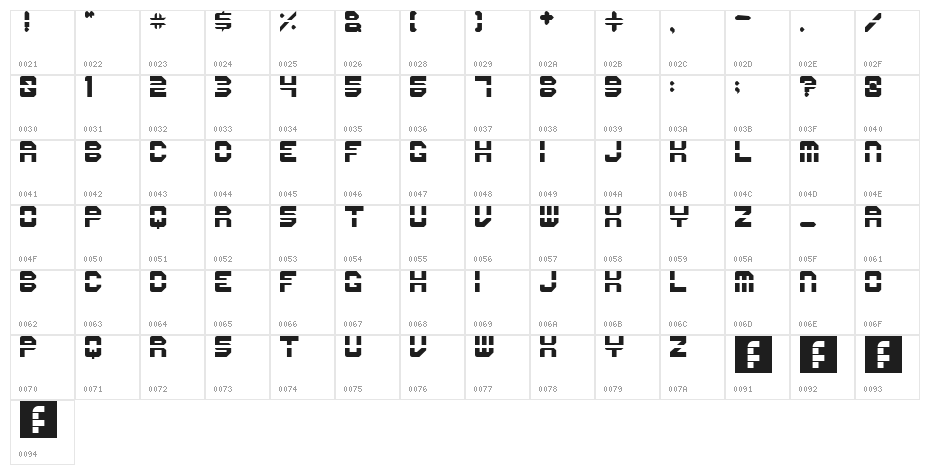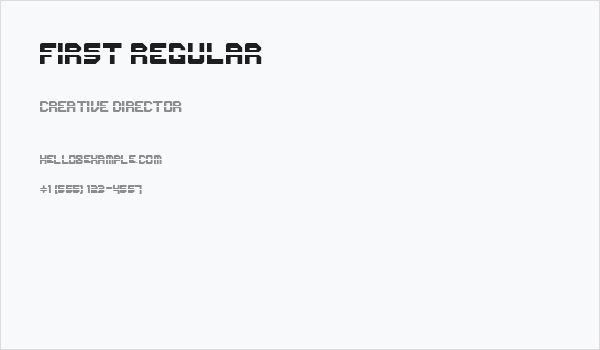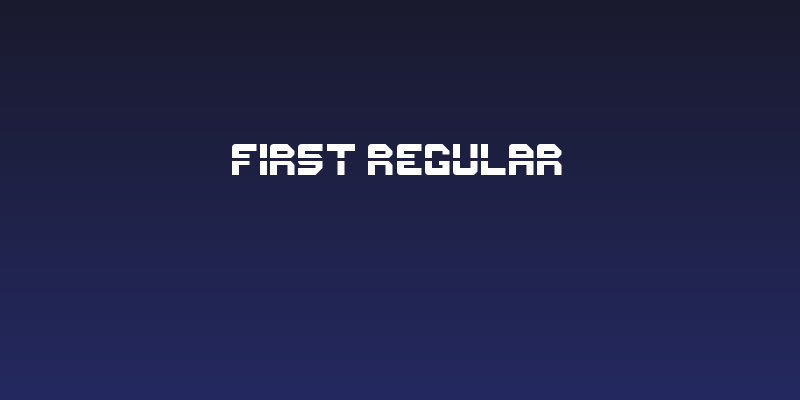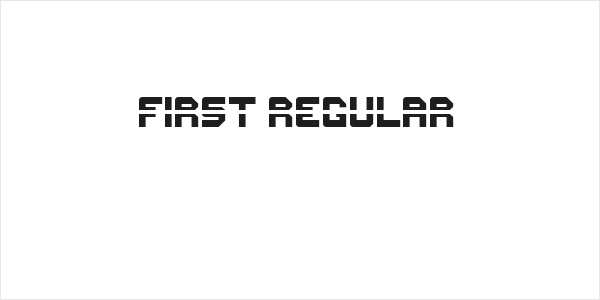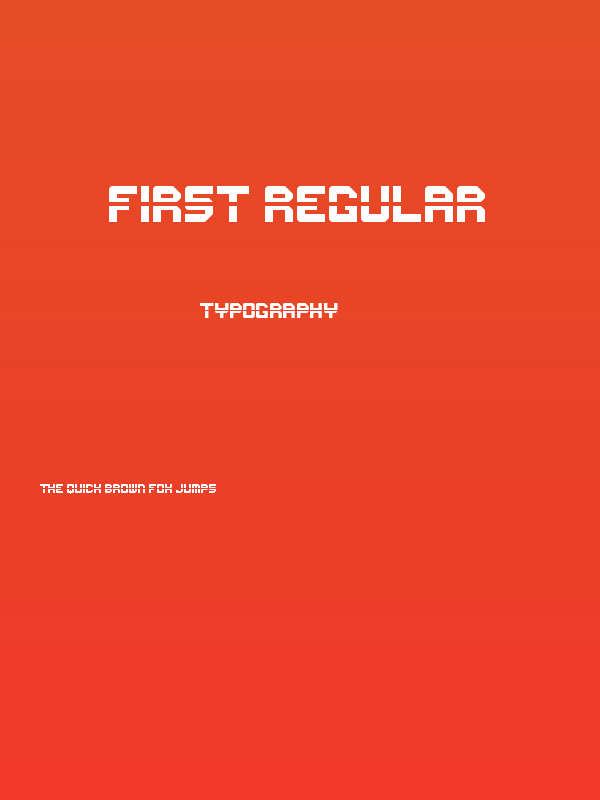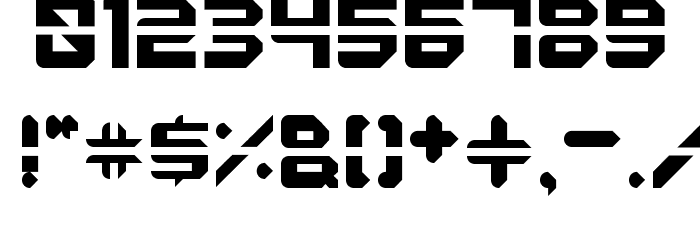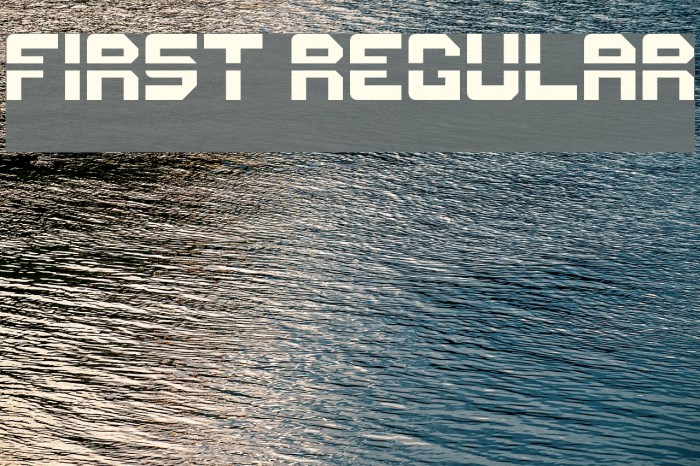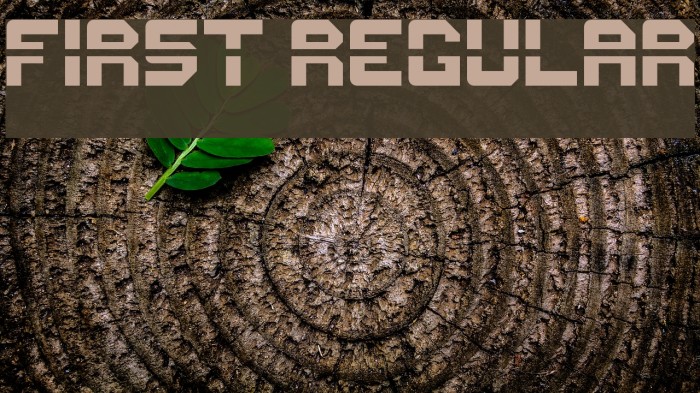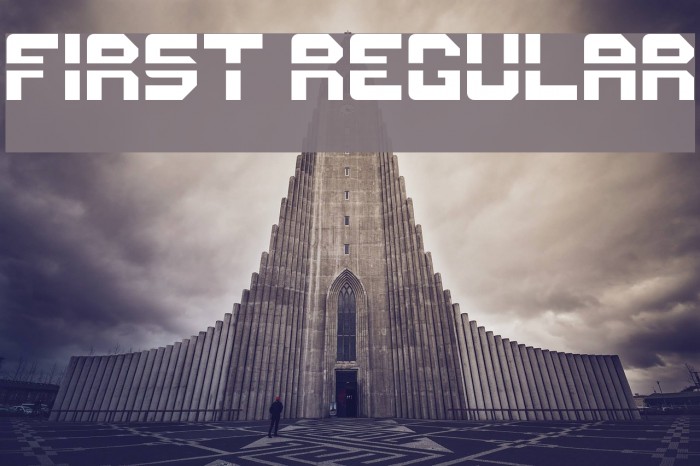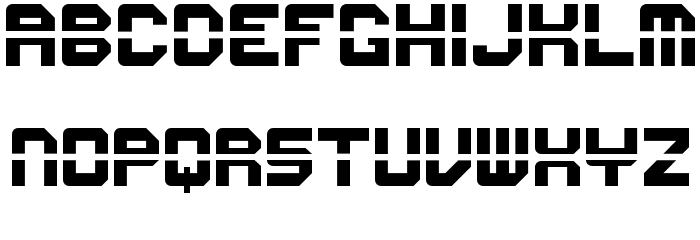
First Regular Font
First Regular Description
This font features a bold, geometric design with a futuristic and industrial feel. The characters are constructed with thick, block-like shapes, creating a strong visual impact. The angular cuts and sharp edges give it a modern and edgy appearance. The uppercase letters are uniform in height, while the numbers and special characters maintain the same bold style. This font is ideal for projects that require a striking and contemporary look, such as technology branding, video game titles, or sci-fi themed designs.
| Proposed Projects | Ideal for technology branding, video game titles, sci-fi themed designs, and modern posters. |